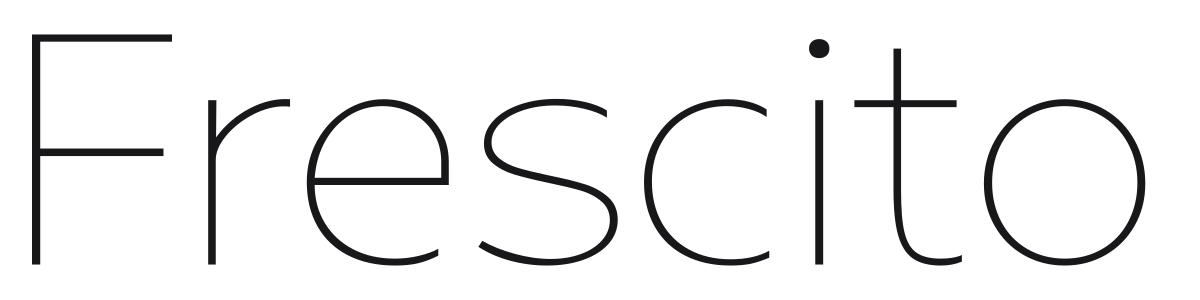
Frescito
Frescito is a geometric monoline sans-serif from Mans Greback, available as a variable font spanning thin to black weights. Its smooth rounded terminals and open apertures give it an effortlessly fresh character that sits comfortably between minimalist editorial and street-smart branding. The variable format opens up a wide range of expressive options from a single file.